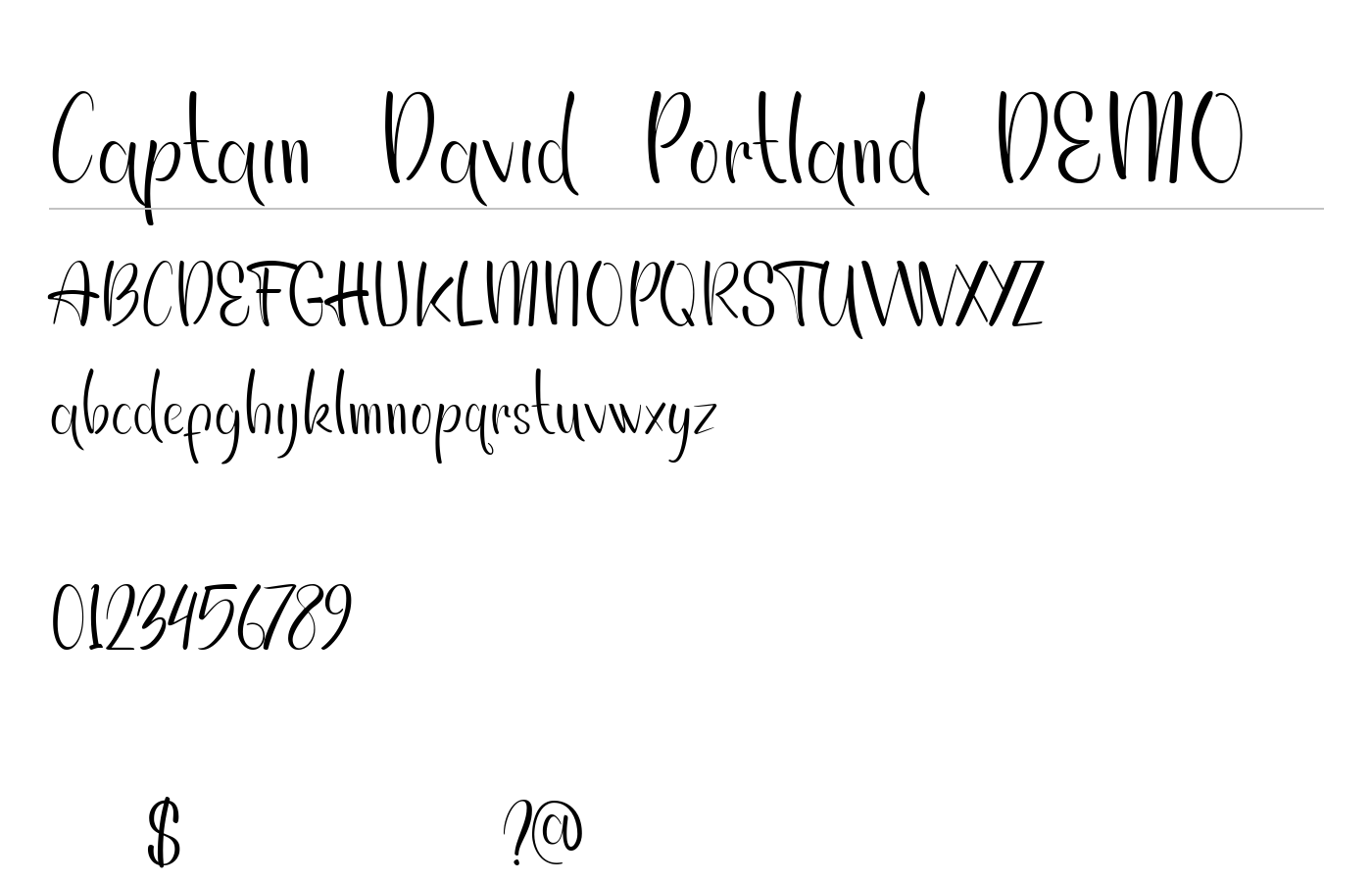
Captain David Portland DEMO is a playful and elegant handwritten script font with a narrow, tall structure and delicate strokes that create a whimsical yet refined look. Its lively character shapes and smooth flow make it ideal for creative branding, invitations, and casual editorial use, adding a personal and friendly touch without losing sophistication. This font works well for projects that seek a modern, approachable style with a handcrafted feel.
Captain David Portland DEMO Font
About Captain David Portland DEMO Font